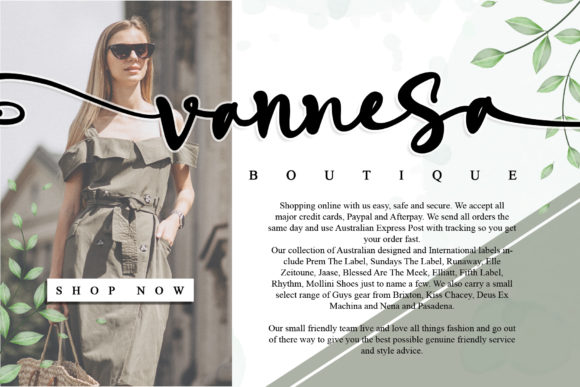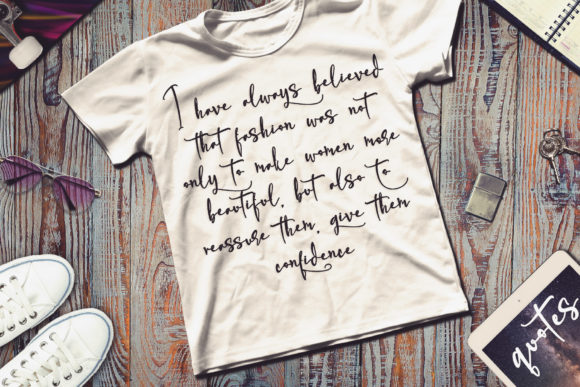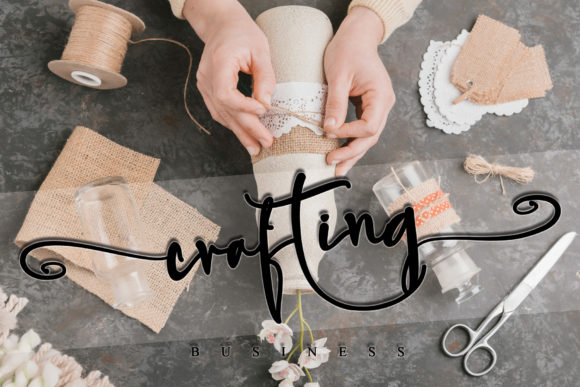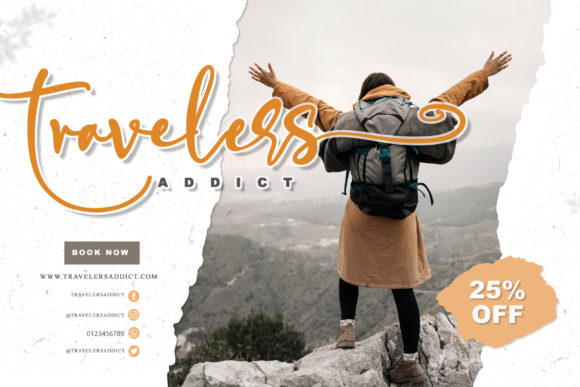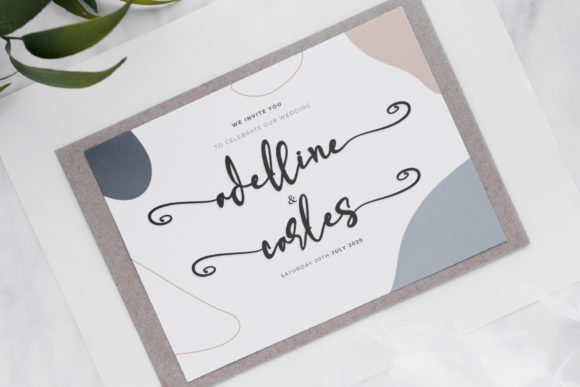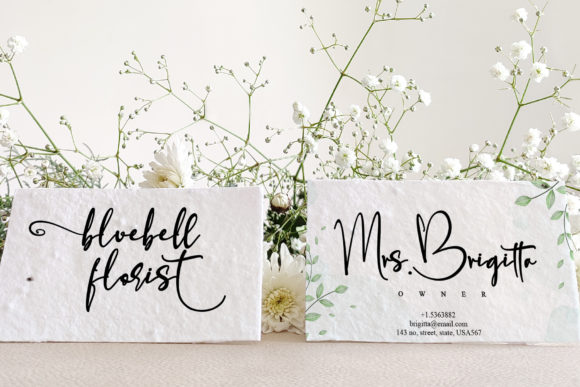
Introducing Angellonia Font: Elevate Your Designs with a Friendly and Artistic Touch
Are you on the hunt for a font that can add a personal touch to your designs, making them stand out with elegance and friendliness? Look no further than Angellonia Font, a modern handwritten script that is redefining the world of typography. With its unique blend of classic charm and contemporary flair, Angellonia is perfect for creatives looking to infuse their projects with a sense of warmth and sophistication.
The Beauty of Angellonia
Angellonia Font is characterized by its incredibly friendly feel, making it an ideal choice for a wide range of creative projects. Whether you’re crafting a stylish Instagram post, designing a logo, or working on a DIY calligraphy project, Angellonia brings a level of versatility and artistic expression that’s hard to match. Its gorgeous swashes and ligatures are meticulously designed to add a touch of elegance and fluidity to your text, transforming any written content into a visual masterpiece.
What Makes Angellonia Stand Out?
- PUA Encoding: Angellonia Font is PUA (Private Use Area) encoded, which means you can easily access all the amazing glyphs and swashes. This feature allows for greater flexibility and creativity in your designs, making it simpler to incorporate the perfect elements to match your vision.
- Alternate Glyphs and Ligatures: The font comes with a wealth of special features, including alternate glyphs and ligatures. These elements enable you to customize your text, adding variety and uniqueness to your designs. Whether you’re looking for a more formal look or something playful and whimsical, Angellonia has you covered.
- Versatility: One of the key advantages of Angellonia Font is its incredible versatility. It’s suitable for a myriad of applications, from digital media like social posts and blogs to print materials such as brochures, posters, and invitations. Its friendly and approachable feel makes it an excellent choice for brands aiming to connect with their audience on a more personal level.
Using Angellonia in Your Projects
Integrating Angellonia Font into your creative projects is straightforward. Here are a few ideas to get you started:
- Instagram and Social Media Graphics: Elevate your social media presence with stylish and engaging posts that reflect your brand’s personality.
- DIY Projects and Crafts: Add a personal touch to your handmade crafts, such as journals, cards, and home decor items, with beautiful calligraphy.
- Branding and Logo Design: Create a memorable brand identity with a custom logo that showcases your business’s unique character.
Angellonia Font is more than just a script – it’s a tool for creative expression that can transform your designs and bring your ideas to life. With its modern yet friendly feel, gorgeous swashes, and versatile features, Angellonia is set to become your go-to font for a wide range of projects. Whether you’re a designer, crafter, or simply someone who loves to dabble in creative pursuits, Angellonia Font offers the perfect blend of style, functionality, and artistic flair.